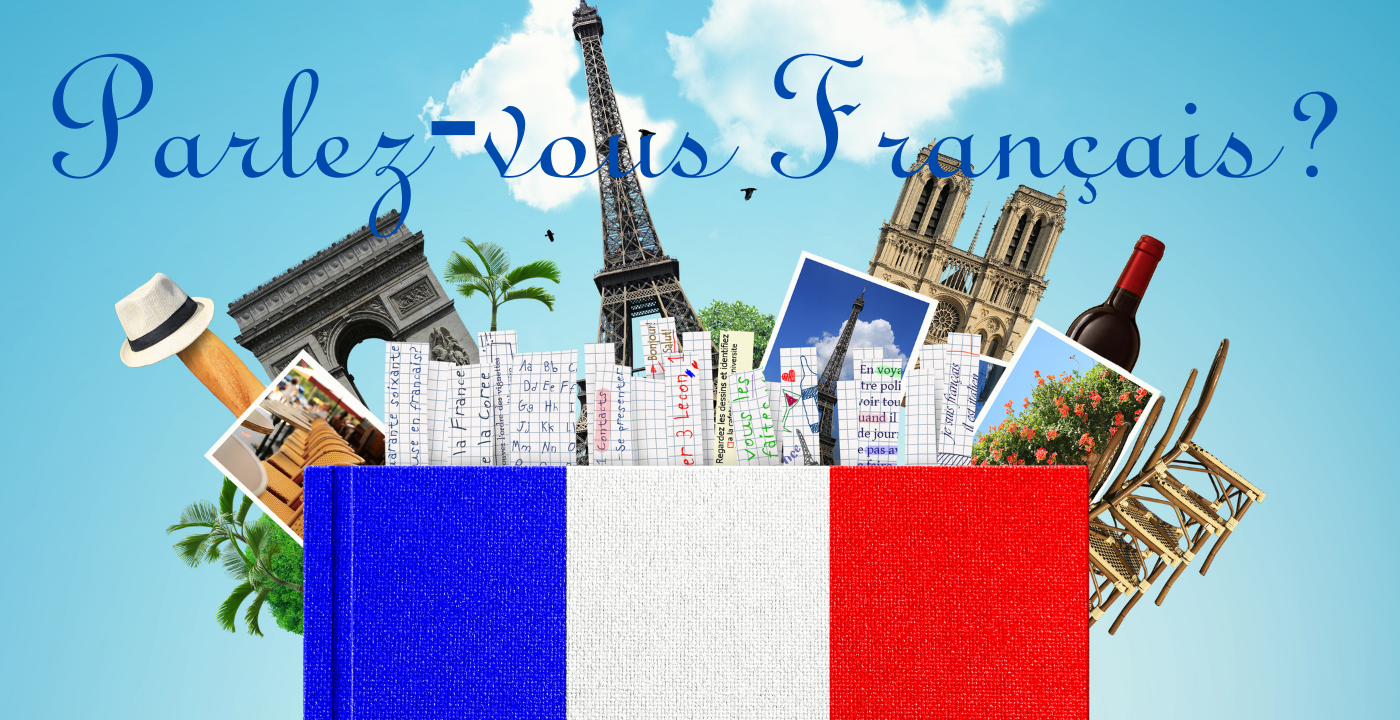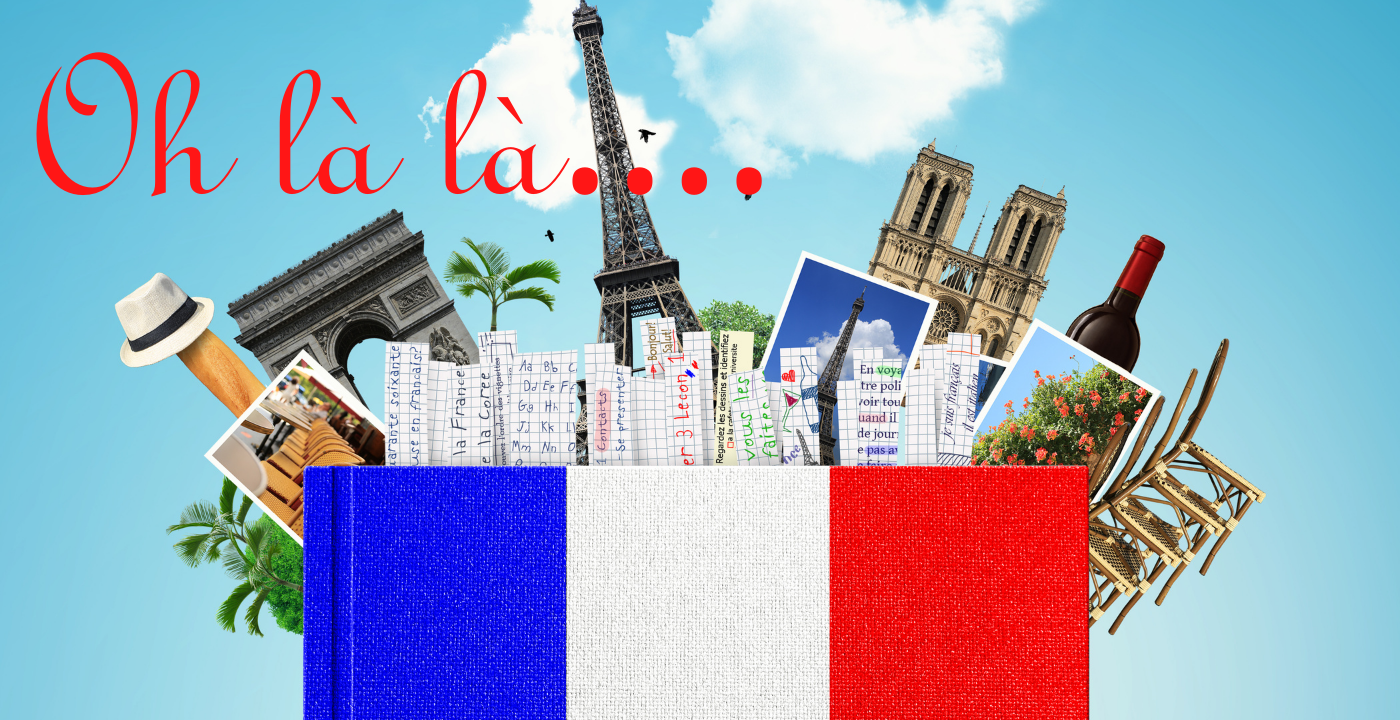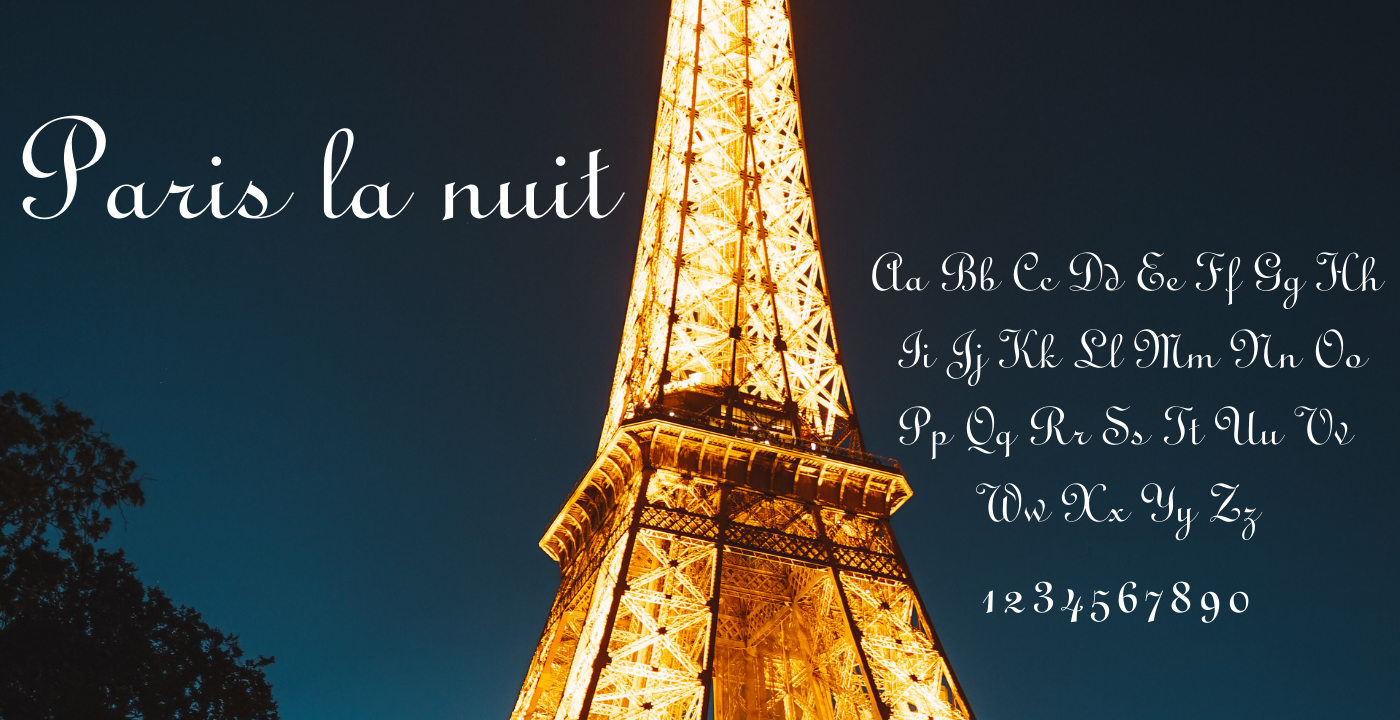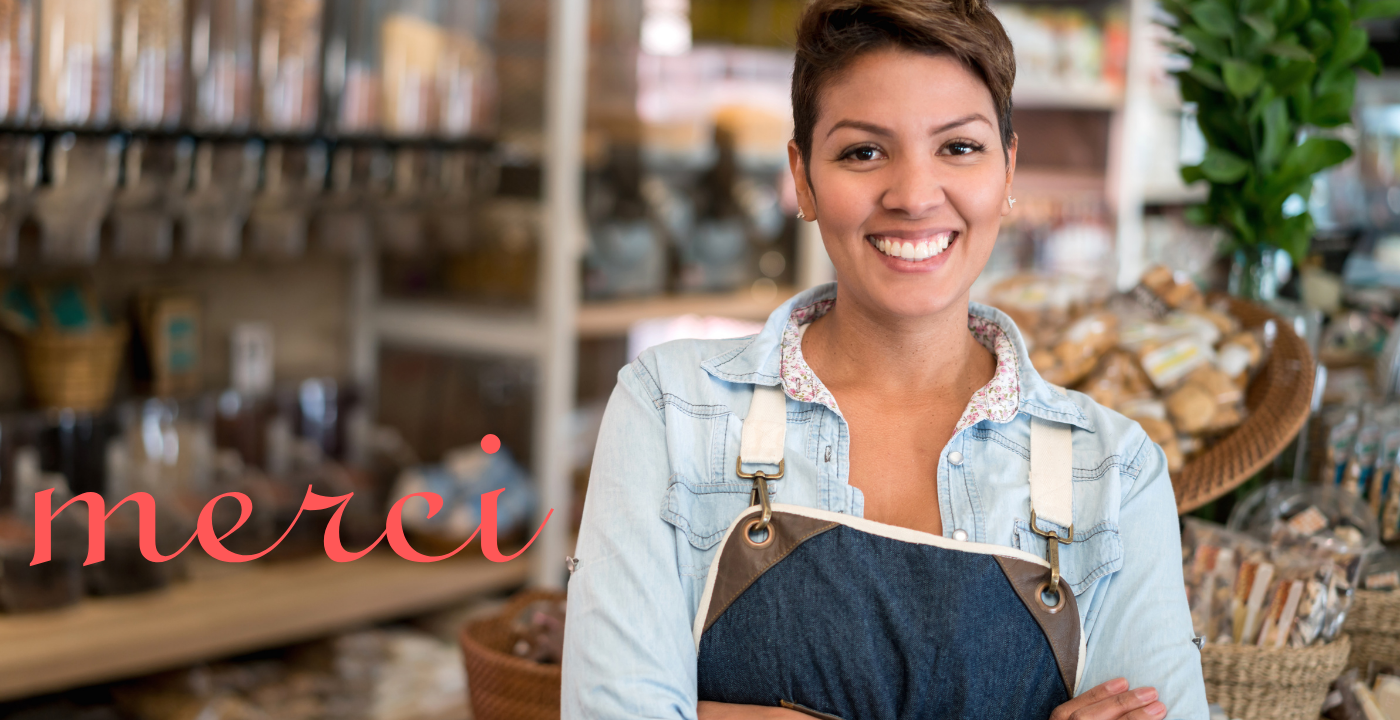
Ronde Script (1 font)
Ronde Script has been a popular choice in designing wedding invitations and so many other formal announcements for over 130 years. Its very readable, formal and elegant with an antique or retro feel.